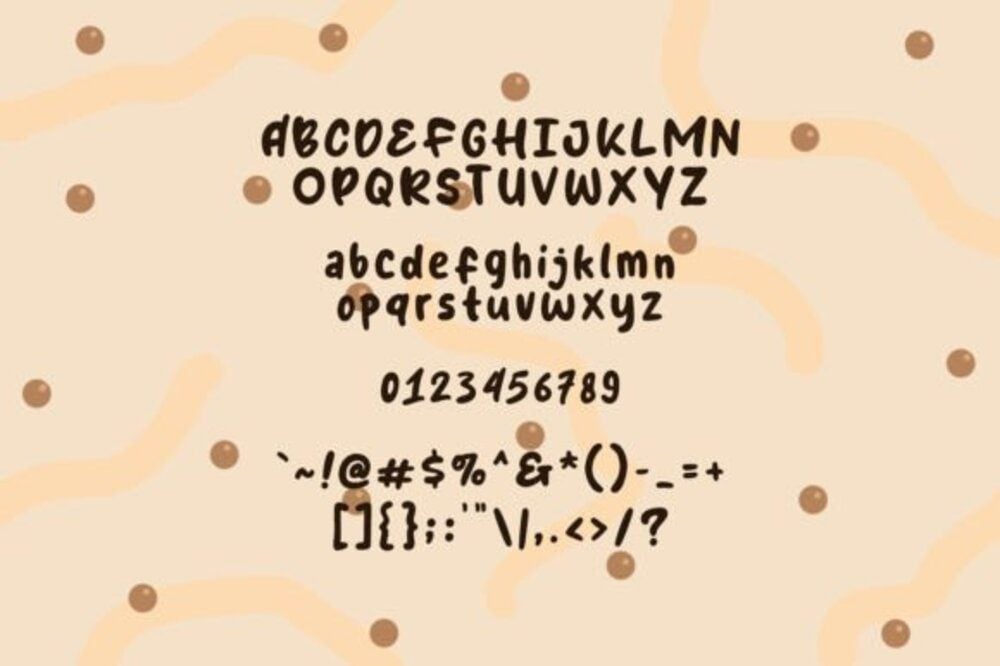
Bobaland Font
Bobaland Font is a unique and playful typeface inspired by the fun and vibrant world of bubble tea culture. Featuring rounded, bubbly letterforms with quirky details, it’s perfect for branding, packaging, posters, and children’s designs. Its distinctive style adds a cheerful and creative touch to any project, making it stand out with charm and personality. Bobaland Font is ideal for those seeking a fun, fresh, and unique typographic vibe.